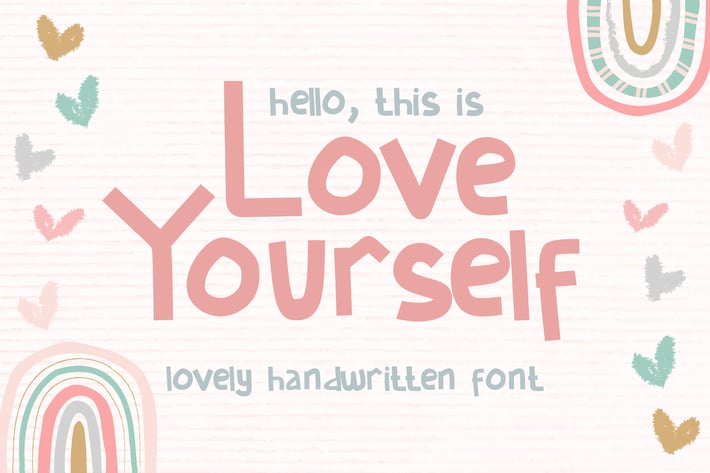
Love Yourself - Cute Handwritten Font
Love Yourself is a handwritten font with a cute and lovely theme, making it the perfect choice for a variety of design projects. The font features a unique, hand-drawn style that adds a lovely touch to any design. The letters have a playful and friendly feel, with rounded edges and a casual flow.
The Love Yourself font is perfect for creating heartfelt messages and invitations, and it can also be used for branding, packaging, and other design projects. The font includes uppercase and lowercase letters, numerals, and punctuation marks, and it comes in multiple formats for easy use in different design software. Overall, Love You Dad is a font that will bring a touch of warmth and love to any project.